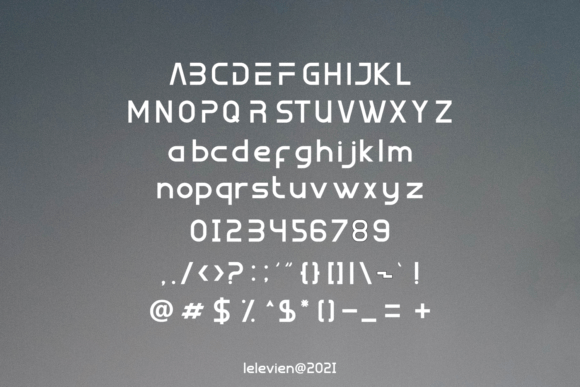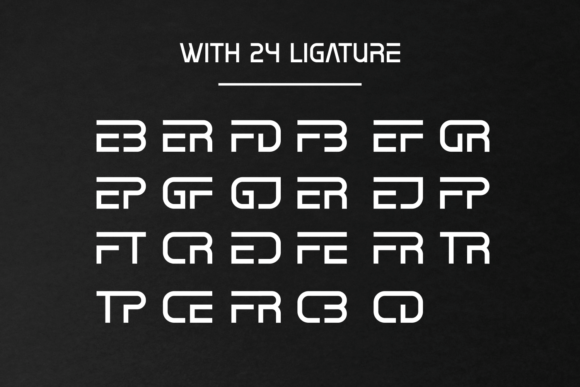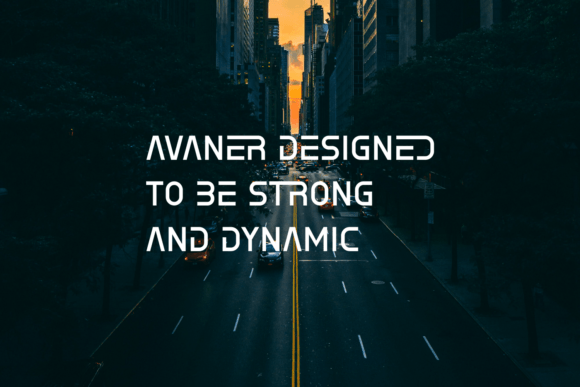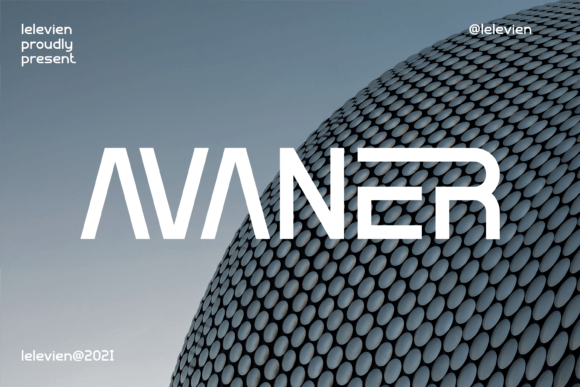
Avaner Font: Elevate Your Designs with a Stylish and Unique Display Font
Are you tired of using the same old fonts in your designs? Look no further than Avaner Font, a stylish and uniquely-shaped display font that’s sure to take your creative projects to the next level. With its PUA encoding, Avaner Font offers easy access to all glyphs and ligatures, making it a versatile and practical choice for designers and crafters alike.
What Makes Avaner Font So Special?
Avaner Font is a one-of-a-kind display font that’s designed to make a statement. Its unique shape and stylish lines make it perfect for adding a touch of elegance and sophistication to any design. Whether you’re working on a logo, a poster, or a website, Avaner Font is sure to impress.
One of the standout features of Avaner Font is its PUA (Private Use Area) encoding. This means that all glyphs and ligatures are easily accessible, allowing you to get creative with your designs without any hassle. With Avaner Font, you can experiment with different combinations of letters and symbols to create truly unique and eye-catching designs.
To get the most out of Avaner Font, experiment with different font sizes, colors, and combinations. Try pairing Avaner Font with other fonts to create a unique and visually appealing design. You can also use Avaner Font to add a touch of personality to your designs, making them stand out from the crowd.
Benefits of Using Avaner Font
There are many benefits to using Avaner Font in your designs. Here are just a few:
- Unique and stylish designs: Avaner Font is a one-of-a-kind display font that’s sure to make your designs stand out.
- Versatile: Avaner Font can be used in a variety of design projects, from logos and posters to websites and social media graphics.
- High-quality: Avaner Font is a high-quality font that’s designed to look great in any design.
Who Can Benefit from Avaner Font?
Avaner Font is perfect for designers, crafters, and anyone looking to add a touch of style and sophistication to their designs. Here are just a few examples of who can benefit from Avaner Font:
- Graphic designers: Avaner Font is perfect for graphic designers looking to create unique and eye-catching designs for their clients.
- Crafters: Avaner Font is great for crafters who want to add a personal touch to their handmade projects, such as cards, scrapbook pages, and DIY signs.
- Small business owners: Avaner Font can help small business owners create professional-looking designs for their branding, marketing materials, and website.